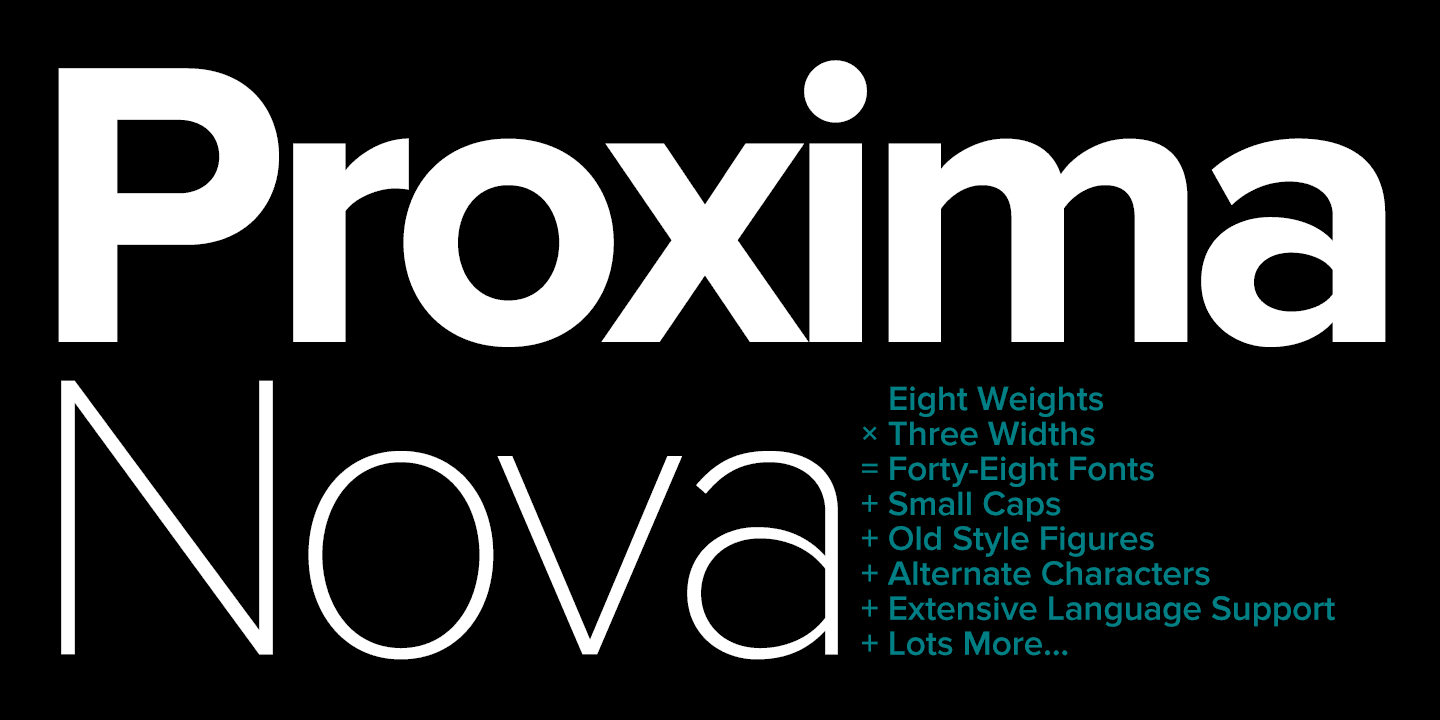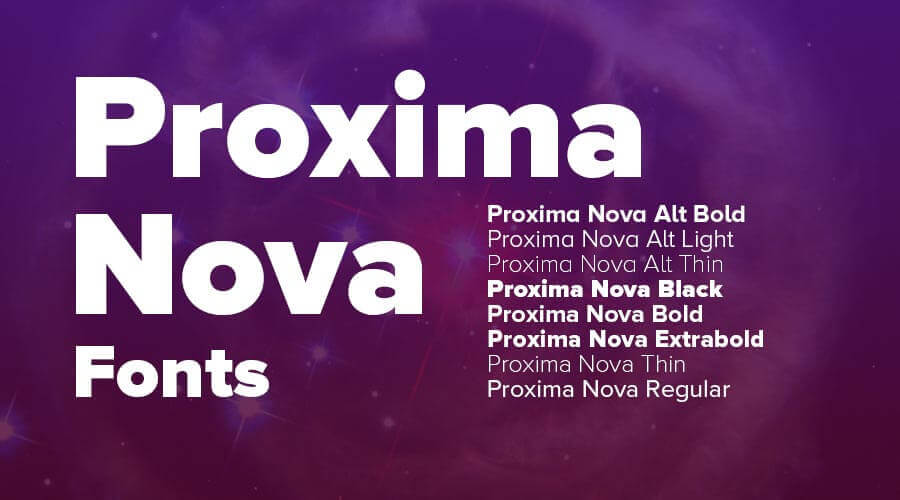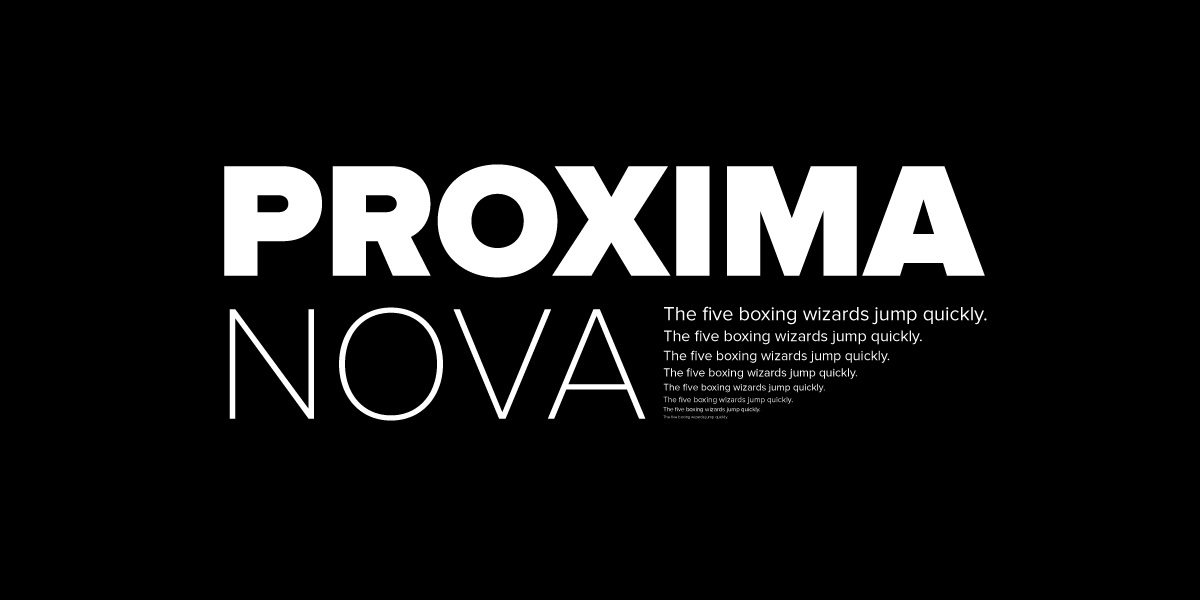
Proxima Nova Font Combinations
Proxima Nova Font Combinations - Web 1 2 next last. Released as proxima nova in 2005, as a revision and expansion of proxima sans (fonthaus, six. Have you ever wondered what serif font would. Web what serif font should i pair with proxima nova? Web proxima nova is available in seven weights—thin, light, regular, semibold, bold, extrabold and black—each with matching.
Web proxima nova is available in seven weights—thin, light, regular, semibold, bold, extrabold and black—each with matching. Web what serif font should i pair with proxima nova? Released as proxima nova in 2005, as a revision and expansion of proxima sans (fonthaus, six. Have you ever wondered what serif font would. Web 1 2 next last.
Have you ever wondered what serif font would. Web what serif font should i pair with proxima nova? Released as proxima nova in 2005, as a revision and expansion of proxima sans (fonthaus, six. Web proxima nova is available in seven weights—thin, light, regular, semibold, bold, extrabold and black—each with matching. Web 1 2 next last.
Fontspring Proxima Nova Fonts by Mark Simonson Studio
Web proxima nova is available in seven weights—thin, light, regular, semibold, bold, extrabold and black—each with matching. Web what serif font should i pair with proxima nova? Have you ever wondered what serif font would. Released as proxima nova in 2005, as a revision and expansion of proxima sans (fonthaus, six. Web 1 2 next last.
Proxima Nova Soft Bold Font by Mark Simonson Studio Font Bros
Released as proxima nova in 2005, as a revision and expansion of proxima sans (fonthaus, six. Have you ever wondered what serif font would. Web 1 2 next last. Web what serif font should i pair with proxima nova? Web proxima nova is available in seven weights—thin, light, regular, semibold, bold, extrabold and black—each with matching.
Proxima nova font pairing daseiheart
Have you ever wondered what serif font would. Released as proxima nova in 2005, as a revision and expansion of proxima sans (fonthaus, six. Web 1 2 next last. Web what serif font should i pair with proxima nova? Web proxima nova is available in seven weights—thin, light, regular, semibold, bold, extrabold and black—each with matching.
Web 1 2 next last. Web proxima nova is available in seven weights—thin, light, regular, semibold, bold, extrabold and black—each with matching. Web what serif font should i pair with proxima nova? Have you ever wondered what serif font would. Released as proxima nova in 2005, as a revision and expansion of proxima sans (fonthaus, six.
Web what serif font should i pair with proxima nova? Web 1 2 next last. Released as proxima nova in 2005, as a revision and expansion of proxima sans (fonthaus, six. Have you ever wondered what serif font would. Web proxima nova is available in seven weights—thin, light, regular, semibold, bold, extrabold and black—each with matching.
Proxima nova font bundle lasopati
Released as proxima nova in 2005, as a revision and expansion of proxima sans (fonthaus, six. Have you ever wondered what serif font would. Web proxima nova is available in seven weights—thin, light, regular, semibold, bold, extrabold and black—each with matching. Web what serif font should i pair with proxima nova? Web 1 2 next last.
Design Better with the Proxima Nova Font Family HipFonts
Web proxima nova is available in seven weights—thin, light, regular, semibold, bold, extrabold and black—each with matching. Web 1 2 next last. Web what serif font should i pair with proxima nova? Released as proxima nova in 2005, as a revision and expansion of proxima sans (fonthaus, six. Have you ever wondered what serif font would.
Proxima Nova Font Family 126 Fonts for 644 » Free Download Vector
Web 1 2 next last. Web what serif font should i pair with proxima nova? Web proxima nova is available in seven weights—thin, light, regular, semibold, bold, extrabold and black—each with matching. Have you ever wondered what serif font would. Released as proxima nova in 2005, as a revision and expansion of proxima sans (fonthaus, six.
Proxima Nova Medium font details
Web 1 2 next last. Web proxima nova is available in seven weights—thin, light, regular, semibold, bold, extrabold and black—each with matching. Web what serif font should i pair with proxima nova? Have you ever wondered what serif font would. Released as proxima nova in 2005, as a revision and expansion of proxima sans (fonthaus, six.
Proxima Nova Font Family 126 Fonts
Web what serif font should i pair with proxima nova? Web 1 2 next last. Have you ever wondered what serif font would. Web proxima nova is available in seven weights—thin, light, regular, semibold, bold, extrabold and black—each with matching. Released as proxima nova in 2005, as a revision and expansion of proxima sans (fonthaus, six.
Have You Ever Wondered What Serif Font Would.
Released as proxima nova in 2005, as a revision and expansion of proxima sans (fonthaus, six. Web proxima nova is available in seven weights—thin, light, regular, semibold, bold, extrabold and black—each with matching. Web 1 2 next last. Web what serif font should i pair with proxima nova?